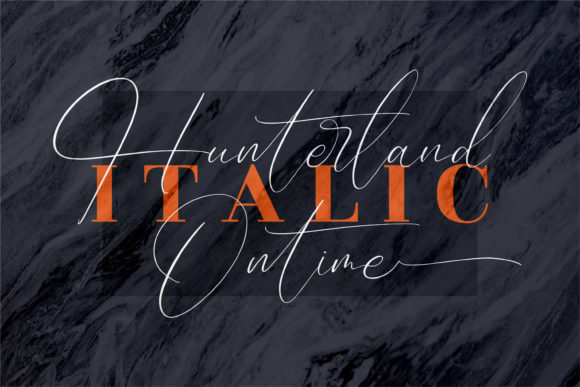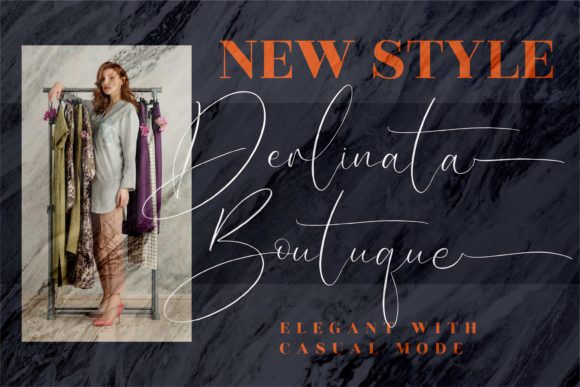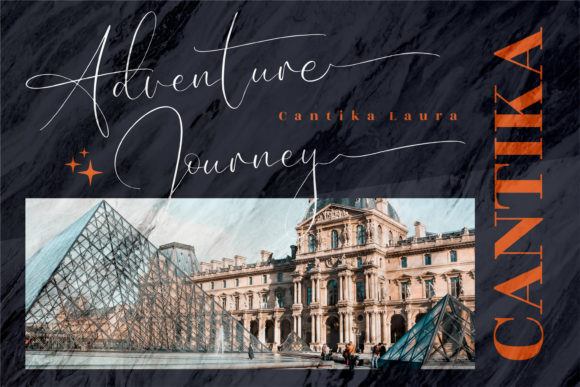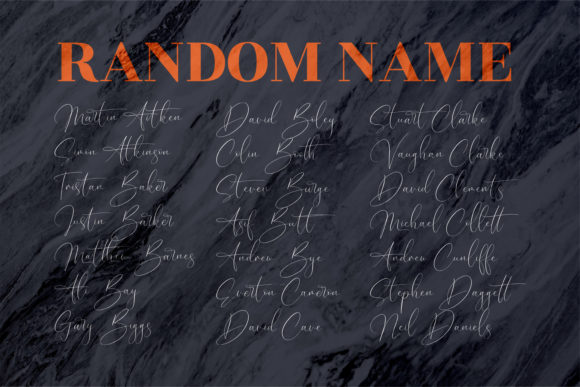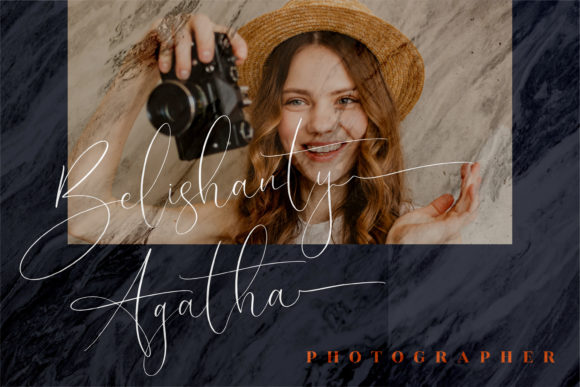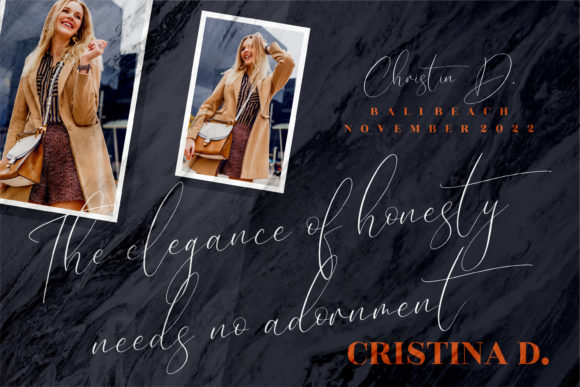
Introduction to Hunterland Ontime Font
Hunterland Ontime is a thin lettered and graceful script font.
Fall for its ravishing style and use it to create gorgeous designs Hunterland Ontime is PUA encoded which means you can access all glyphs and swashes with ease.
Key Features of Hunterland Ontime Font
Why Choose Hunterland Ontime Font?
Hunterland Ontime Font offers exceptional quality and versatility, making it a valuable addition to your design toolkit. Whether you’re creating for personal projects or commercial use, Hunterland Ontime Font delivers professional results.